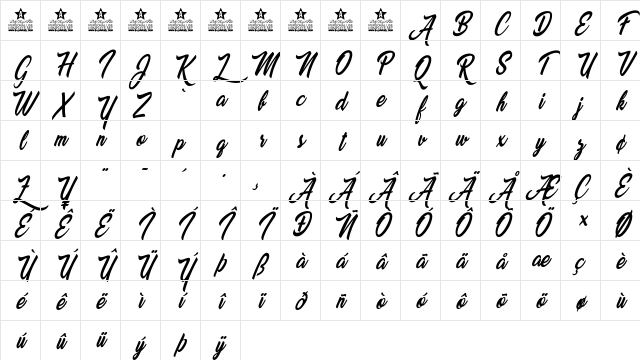
Beautiful Lovers Personal Use Regular Free Font
Beautiful Lovers Personal Use Regular
Foundry: Billy Argel
Designer: Billy Argel
Design Context for Beautiful Lovers Personal Use
Beautiful Lovers Personal Use is a composed and adaptable typeface that performs quietly and consistently across a wide range of design contexts.